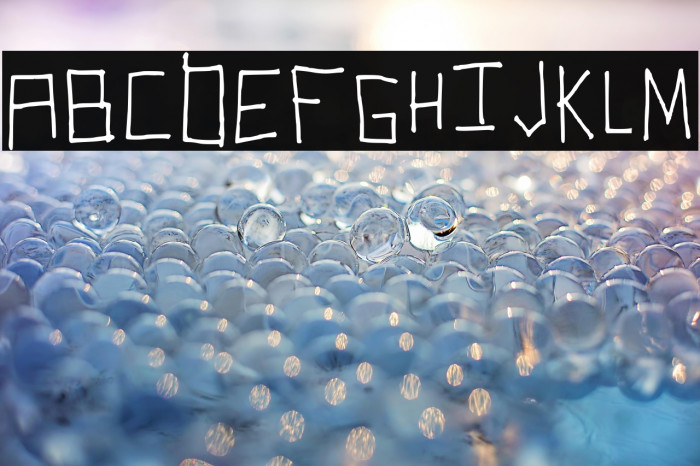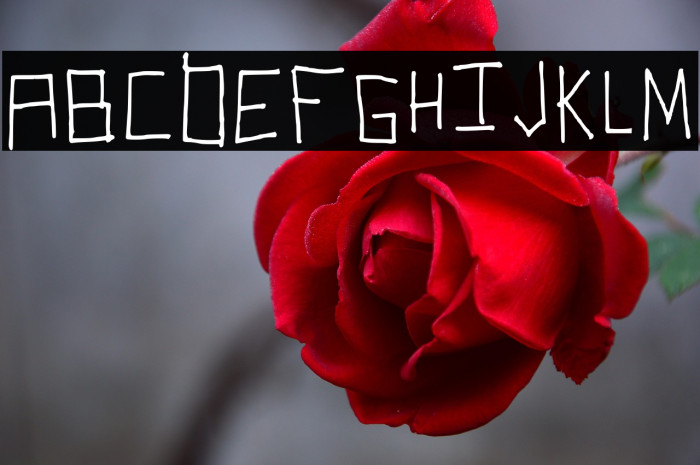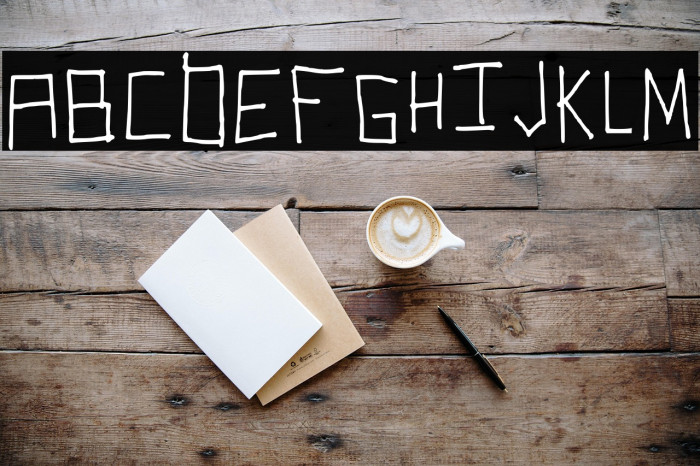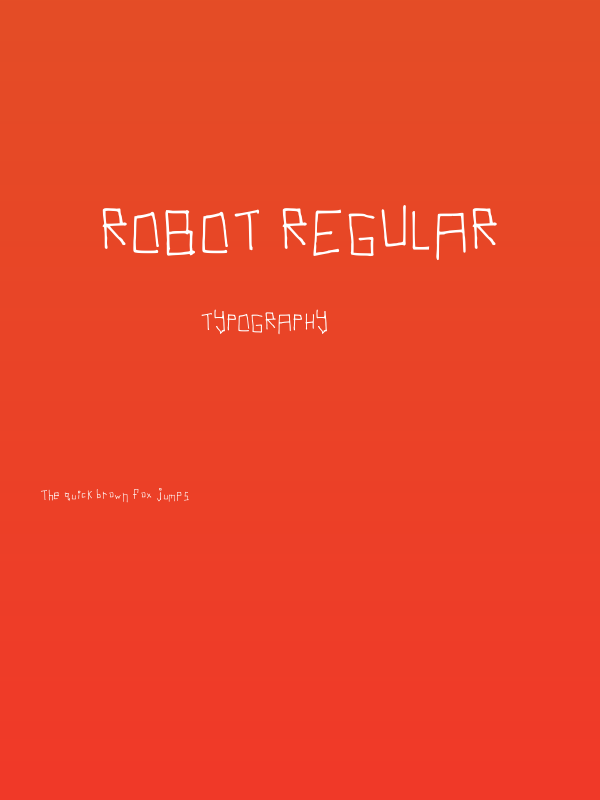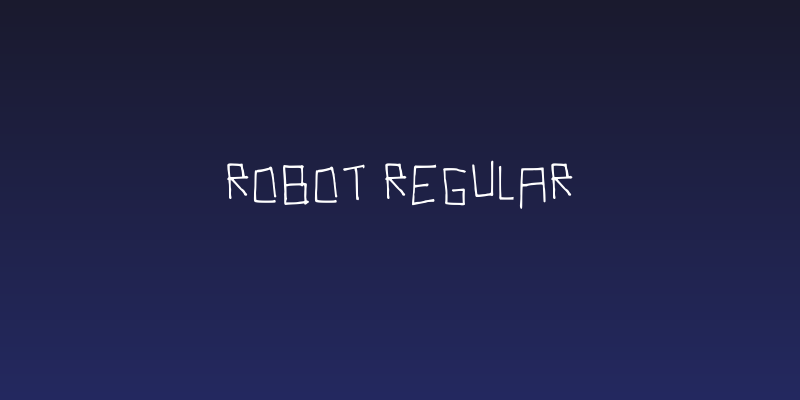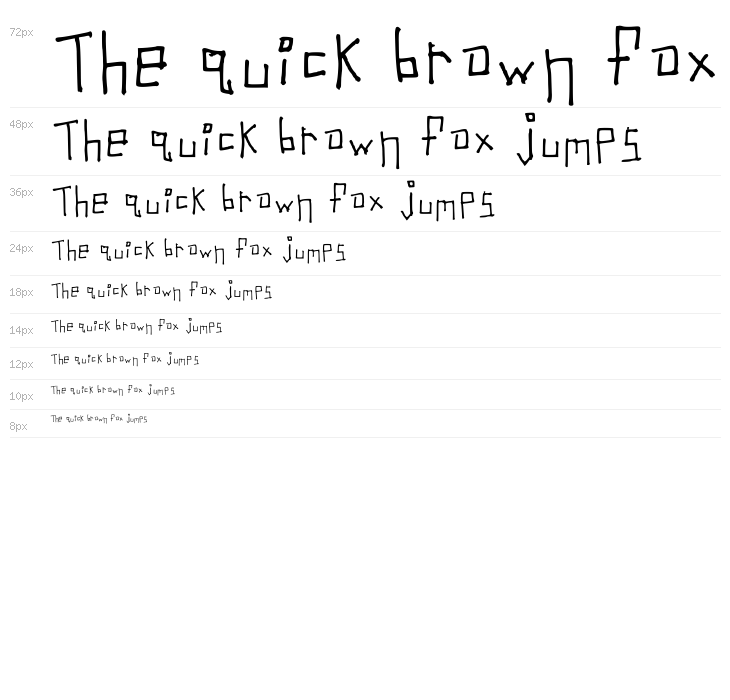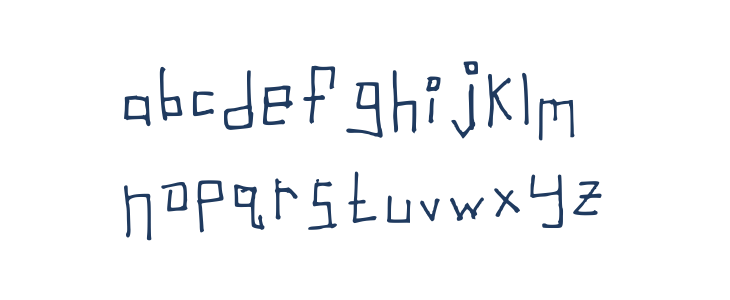
Robot Regular Font
Robot Regular Description
This font features a unique, hand-drawn style with irregular, jagged lines that give it a robotic and mechanical appearance. The characters are distinct and slightly uneven, adding a quirky and playful touch. The uppercase and lowercase letters maintain a consistent height, while the numerals and special characters follow the same design ethos, contributing to a cohesive look. The font's rough edges and angular shapes make it stand out, ideal for projects that require a futuristic or tech-inspired aesthetic.
| Overall Style | Modern, Quirky |
| Proposed Projects | Ideal for tech-themed posters, video game graphics, sci-fi book covers, and creative branding projects. |